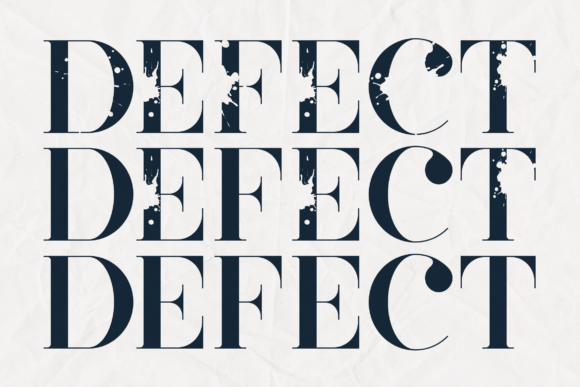
Defect: Bold Serif for Impactful Design
Defect is a striking distressed serif typeface that merges classic typography with a gritty, expressive texture. Its unique blend of elegance and edginess makes it ideal for creating visuals that stand out in the digital space. Marketers, designers, and content creators can leverage Defect to elevate their brand presence across various platforms.
With its strong visual personality, Defect brings a sense of authenticity and energy to any design. It’s perfect for headlines, logos, and promotional materials where a bold statement is needed. The font’s grunge elements add depth and character, making it more than just a typeface—it’s a design tool that enhances storytelling and engagement.
For social media graphics, Defect adds a dynamic edge to Instagram posts, Pinterest pins, and YouTube thumbnails. Its large, eye-catching form ensures that your message grabs attention instantly. Whether you're promoting a product launch or sharing an inspirational quote, Defect helps your content cut through the noise of fast-scrolling feeds.
In email headers and website banners, Defect creates a strong first impression. It works well for landing pages, web design, and digital ads where clarity and impact are essential. The font’s readability at larger sizes makes it suitable for headlines and callouts that need to be both stylish and easy to read.
When used in campaign visuals, Defect supports audience engagement by reinforcing brand identity. Its distinctive look helps create a memorable visual signature that aligns with your brand’s personality. Whether you’re designing for seasonal promotions or personal branding, Defect offers a versatile way to express your message with confidence.
For example, a sale announcement using Defect as the headline can immediately draw attention and convey urgency. A product teaser with a bold, distressed title can spark curiosity and drive clicks. In a webinar banner or content series, Defect adds a professional yet creative touch that sets your content apart.
The font excels in short text, headlines, and decorative accents. It’s not meant for long paragraphs but shines in titles, logos, and key messaging areas. When paired with a clean sans serif font, Defect balances its intensity with readability, making it suitable for captions, subheadings, and supporting text.
On mobile screens and small previews, Defect maintains legibility when used appropriately. Its contrast and texture help it stand out without overwhelming the viewer. For thumbnails and social media covers, this font ensures your content is instantly recognizable, even in a crowded feed.
When considering font pairing, Defect pairs well with modern typography and editorial designs. Combining it with a simple sans serif can create a balanced composition, while pairing it with another serif font adds a layered, sophisticated look. These combinations are ideal for editorial layouts, packaging design, and brand identity projects.
Whether you're working on a digital ad, a branded template, or a campaign graphic, Defect delivers a unique blend of style and substance. Its ability to convey emotion and strength makes it a valuable addition to any designer’s toolkit. By integrating Defect into your design strategy, you can create content that resonates with your audience and reinforces your brand’s voice.
From social media to web design, Defect transforms how your message is seen and felt. It’s more than just a typeface—it’s a creative asset that empowers marketers to make a lasting impression. With its versatility and visual appeal, Defect is a must-have for anyone looking to elevate their digital presence.
As part of your design assets, Defect contributes to a cohesive brand identity that feels authentic and impactful. Its use in promotional materials, online shop banners, and campaign visuals ensures that your message is clear, compelling, and unforgettable.